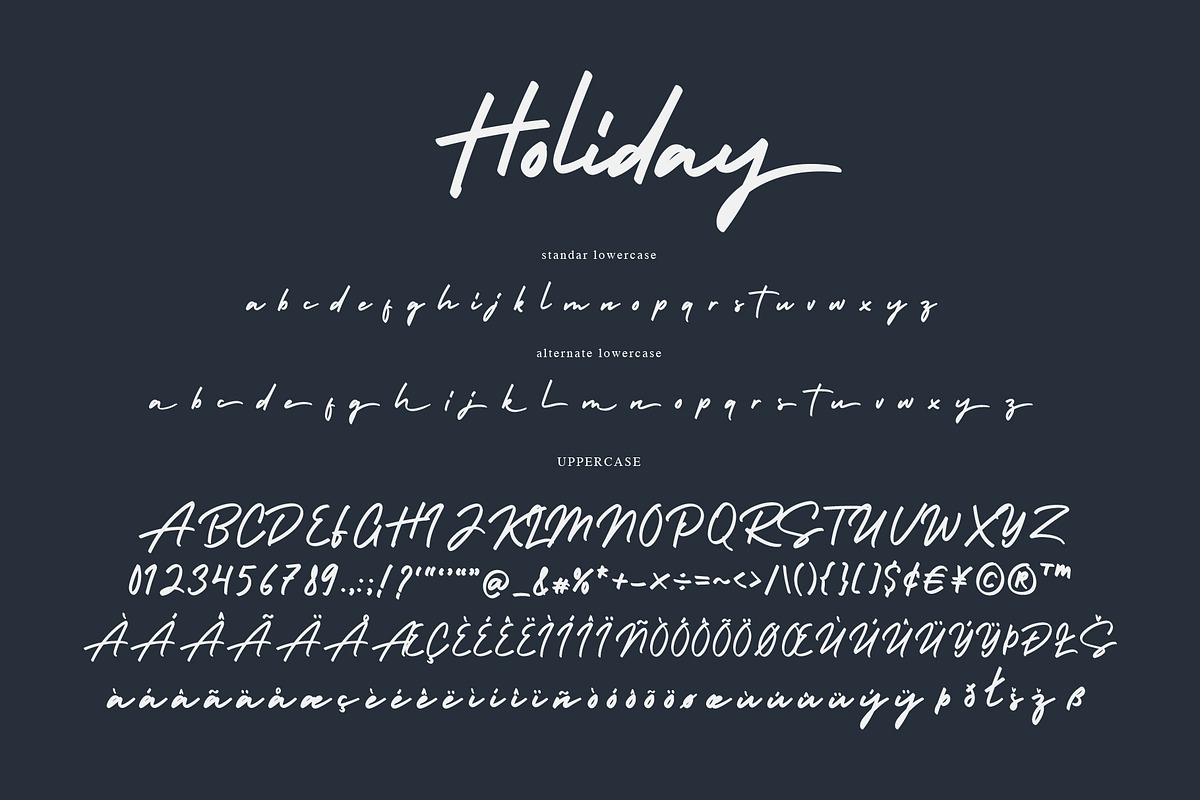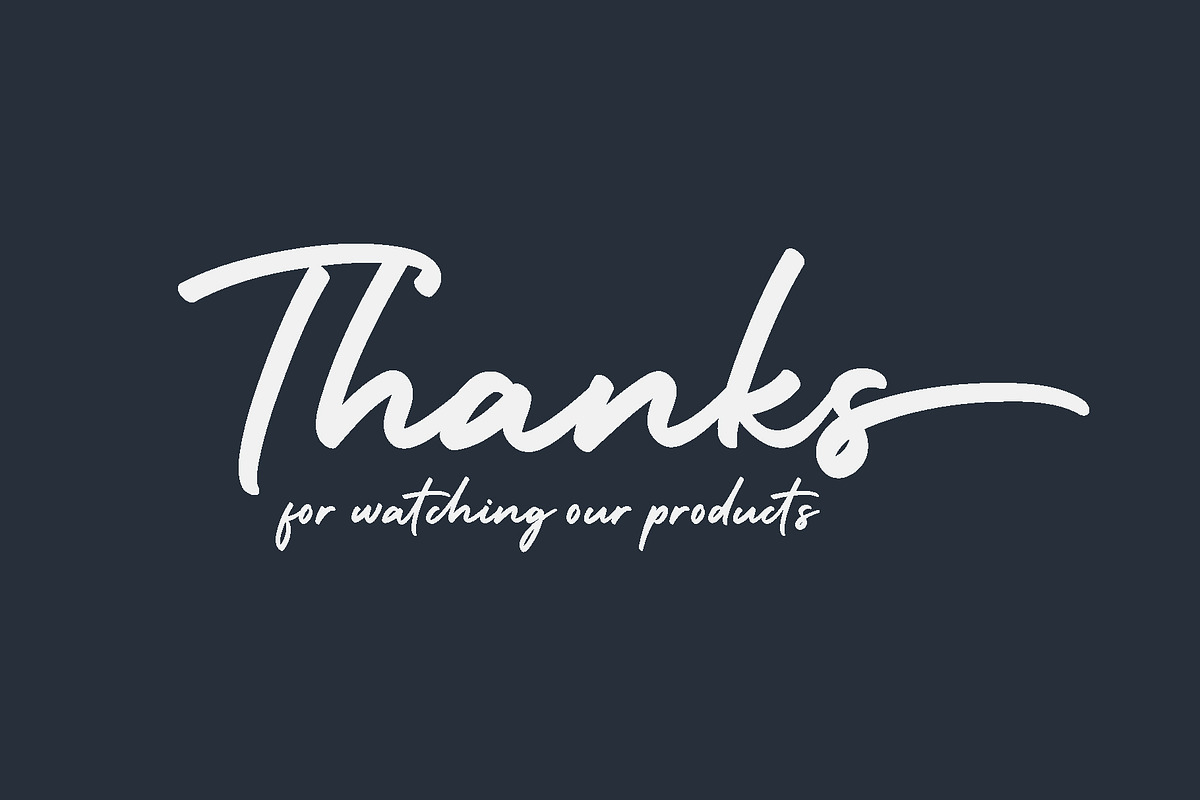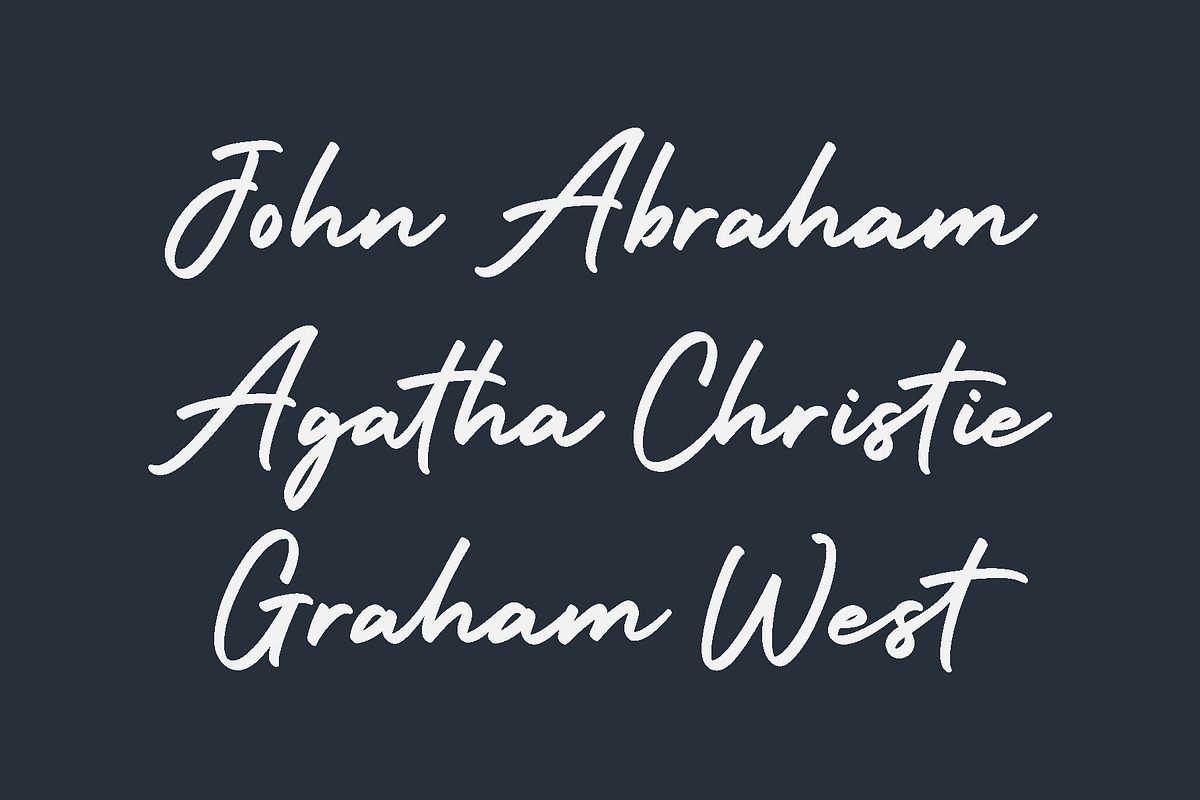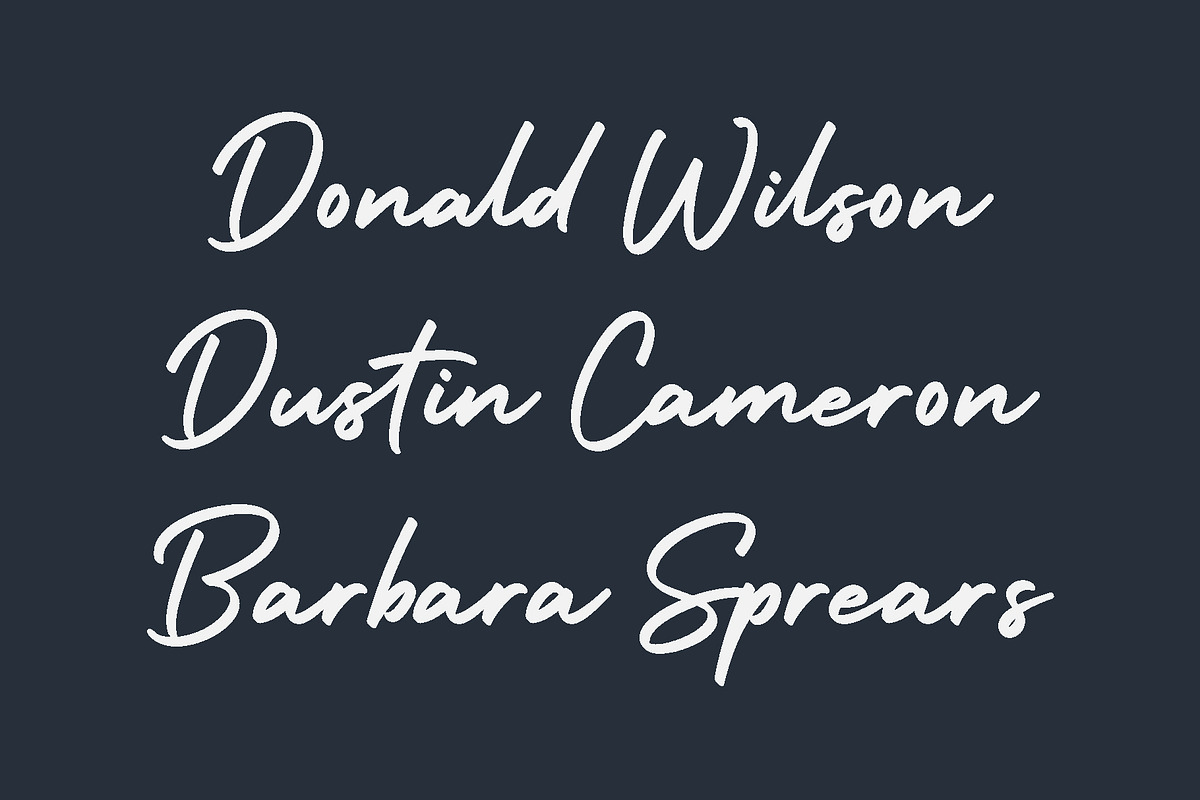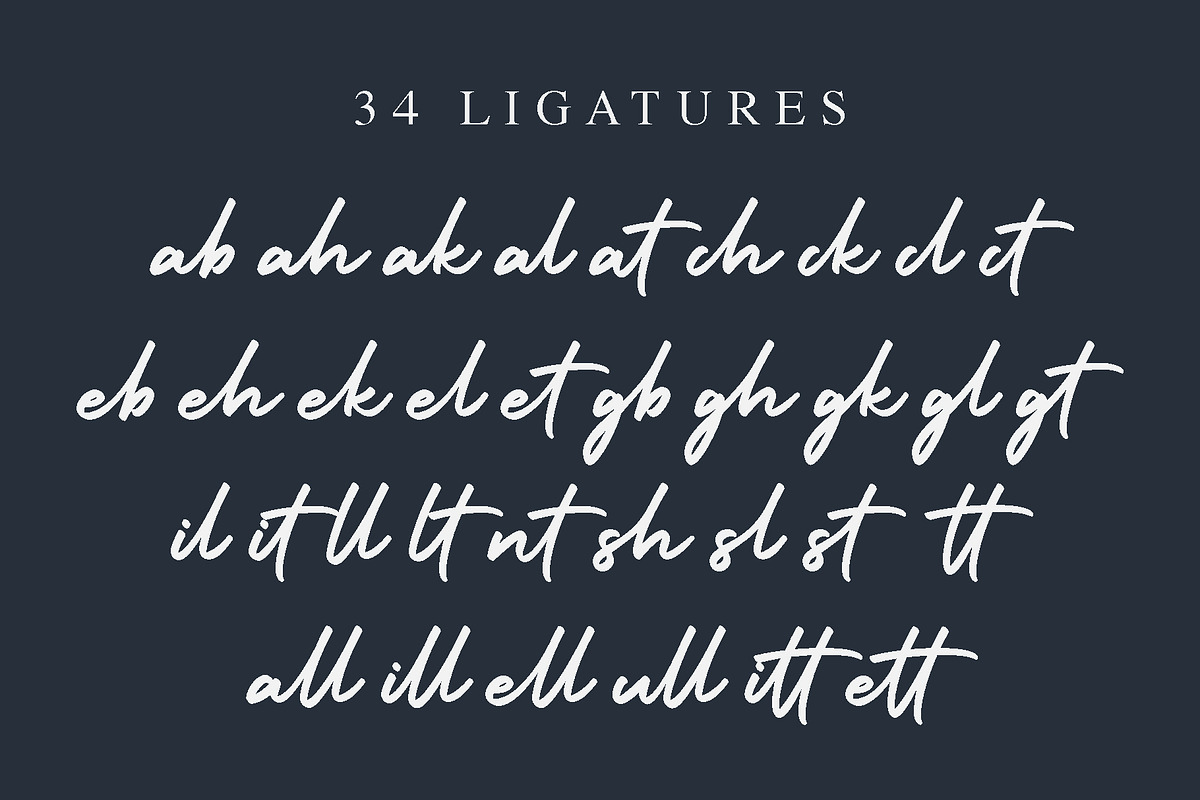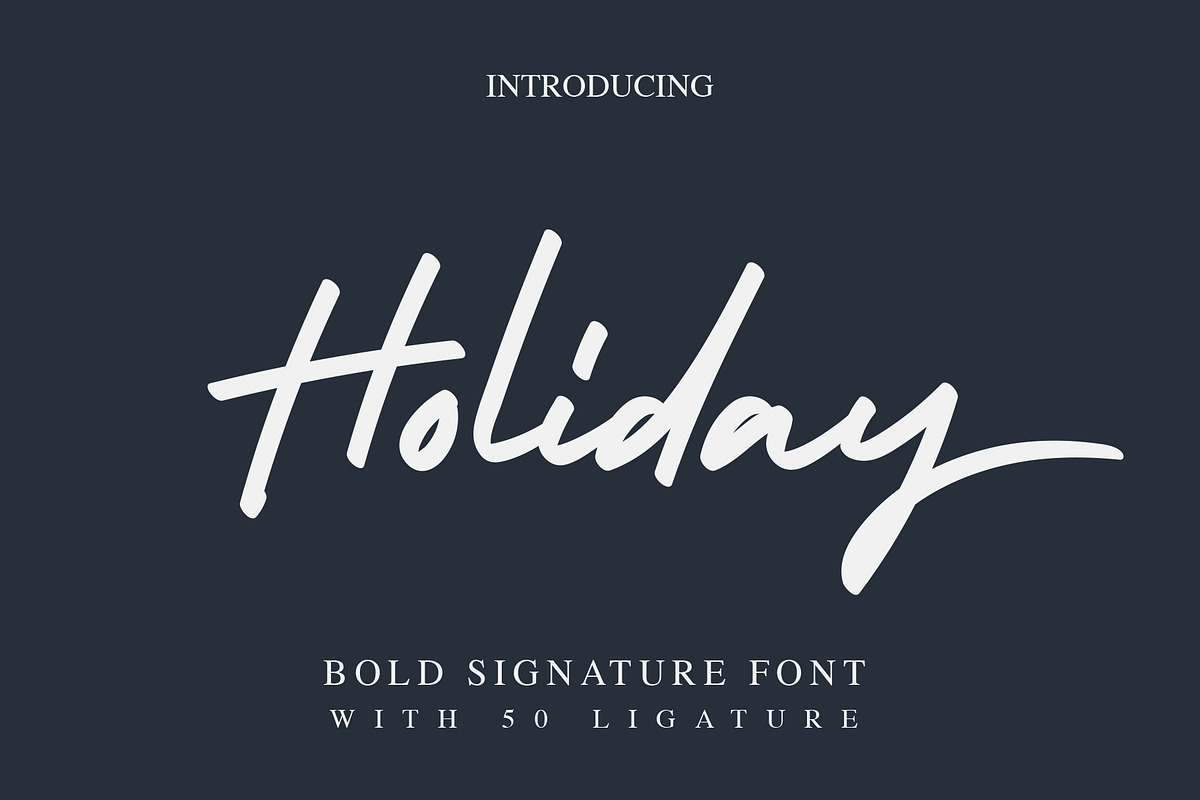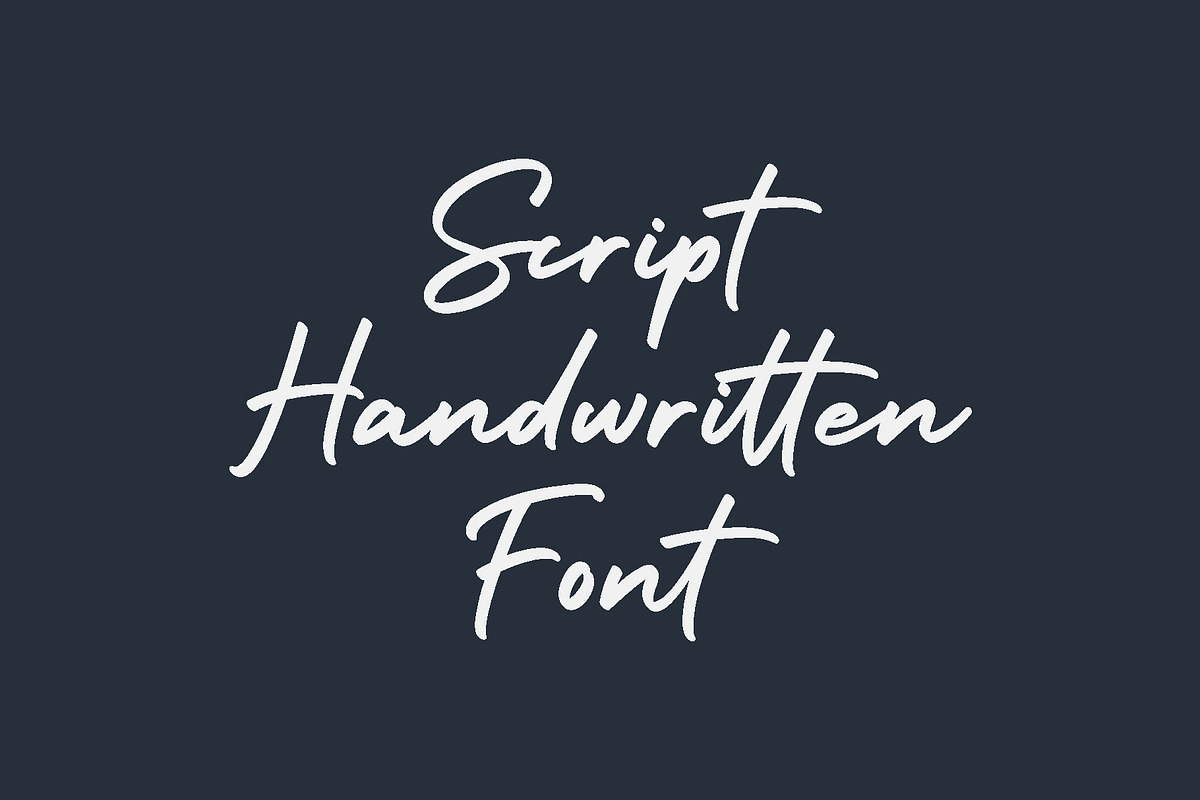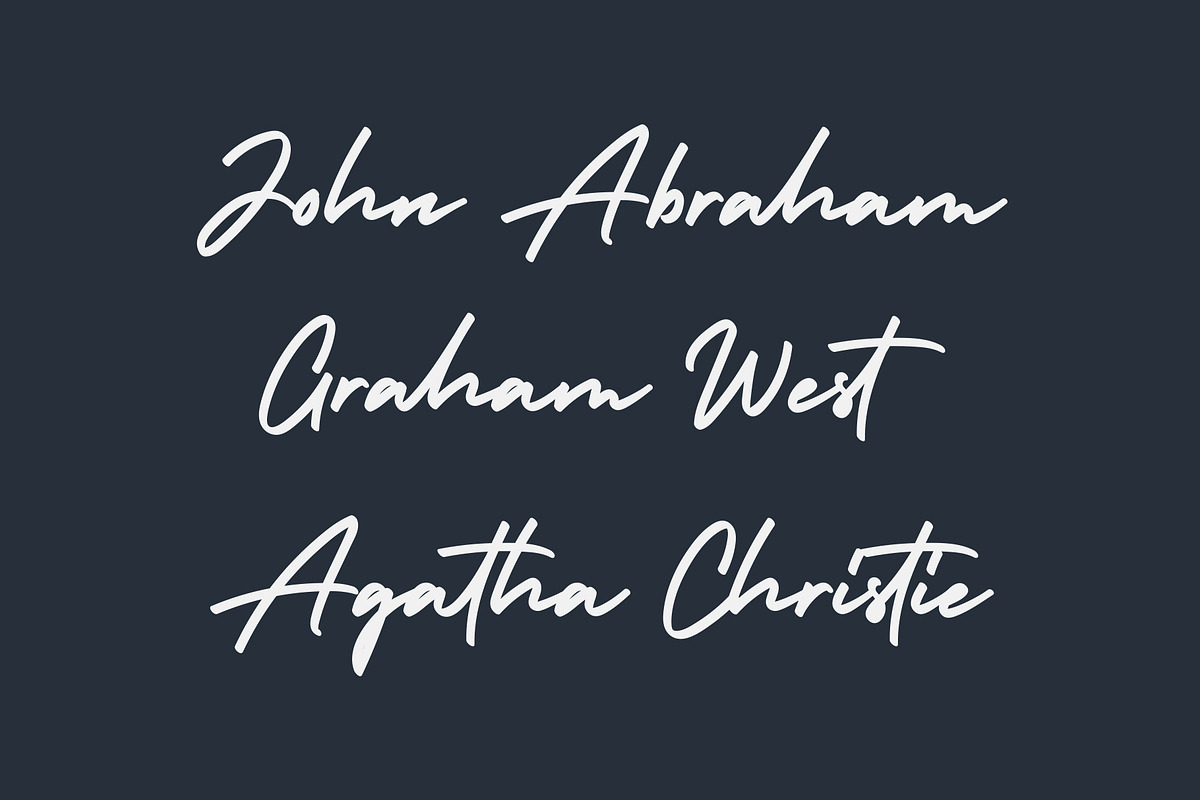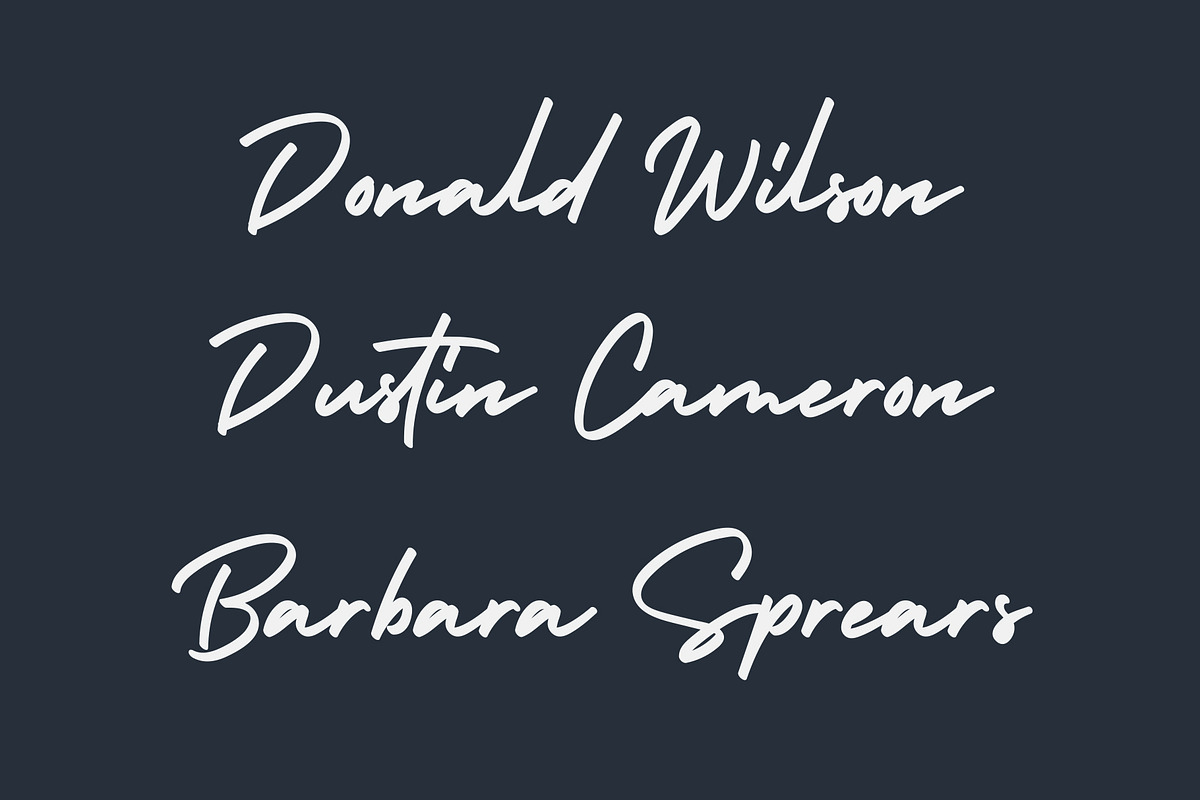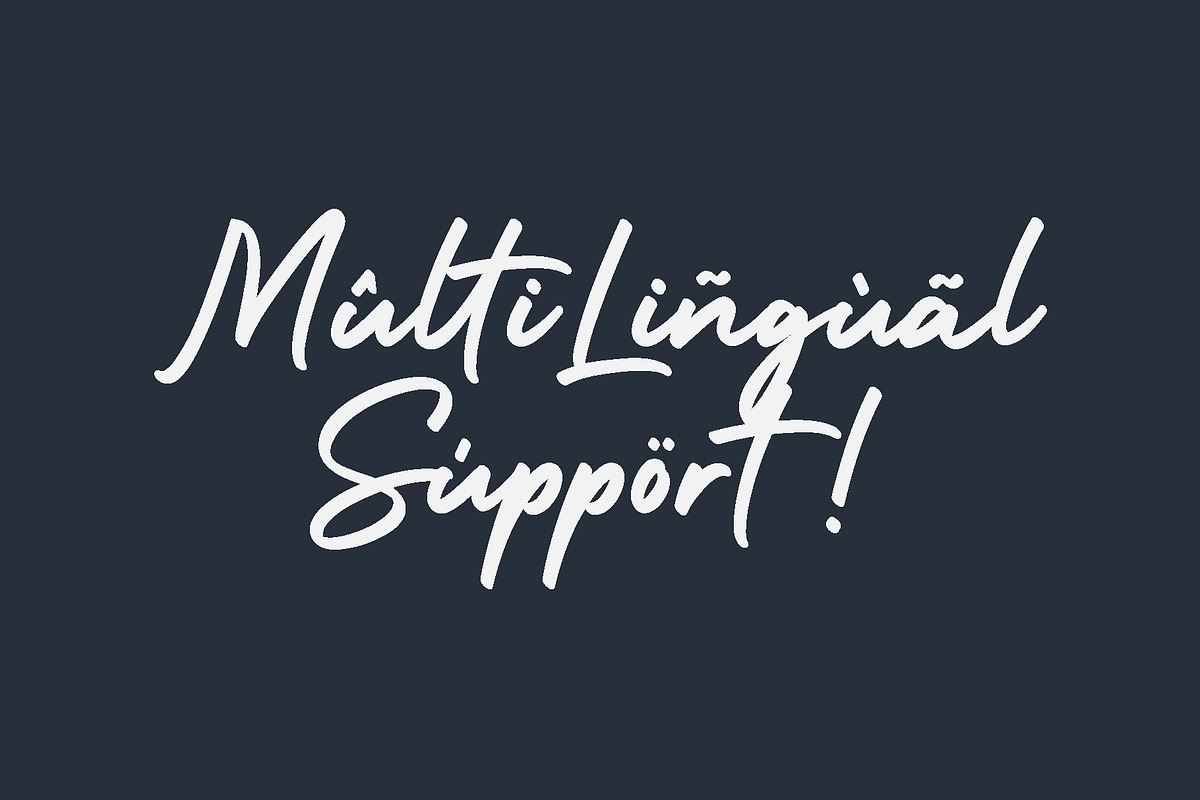
Holiday - Script Handwritten Font
Introducing our UPDATE "Holiday - Script Handwritten Font"
Two years ago we created a script handwritten font that we named Holiday, we didn't expect, hundreds of designers have use the Holiday font, this is really cool font. And today, we've been working hard to make this Holiday font even better, it's the best script handwritten font we've ever made, we've named it Holiday2.
Holiday2 - Script Handwritten Font is a handwritten script font with a simple and classy style, this font is great for your next creative projects such as branding, watermark on photography, signature or signature logo design, quotes, album cover, business card, and many other design project. From business cards to photo watermarks, Holiday2 is here to elevate your work to the highest level.
However, we still included our old Holiday font, we created Holiday2 to be easier to read and of course with a better design and clean.
Holiday comes with uppercase letters, lowercase alternative letters, numbers, punctuation, ligature and multi lingual support
I purchased this font as a base for a custom logotype. There are a few characters that I'm not stoked about, but overall, its a super clean modern calligraphy font that looks real nice.